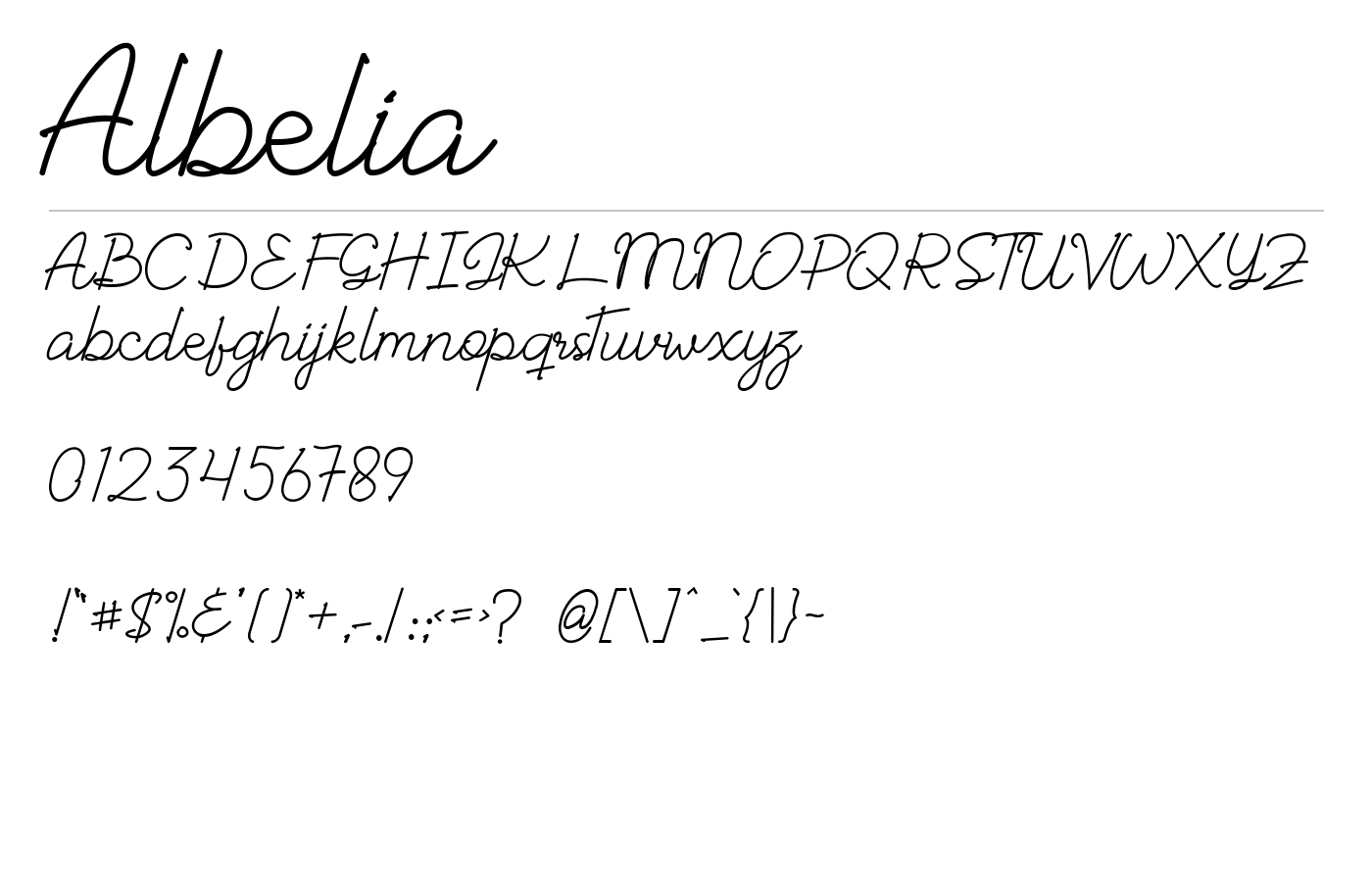
Albelia is a delicate, handwritten script font featuring a light weight and elegant, flowing strokes that give it a refined and personal touch. Its slender, slightly slanted letterforms with consistent thin lines create an airy and graceful appearance, perfect for adding a sophisticated yet approachable feel to invitations, branding, and editorial designs. This font works especially well where a soft, stylish, and intimate tone is desired, enhancing projects with a touch of charm and elegance.
Albelia Font
About Albelia Font